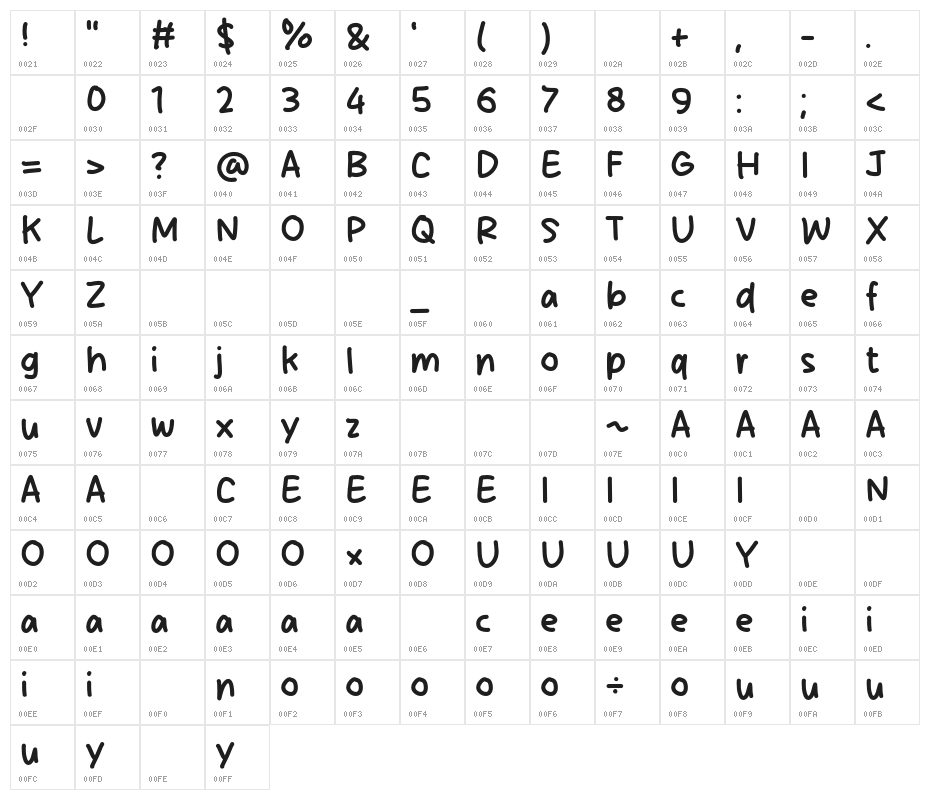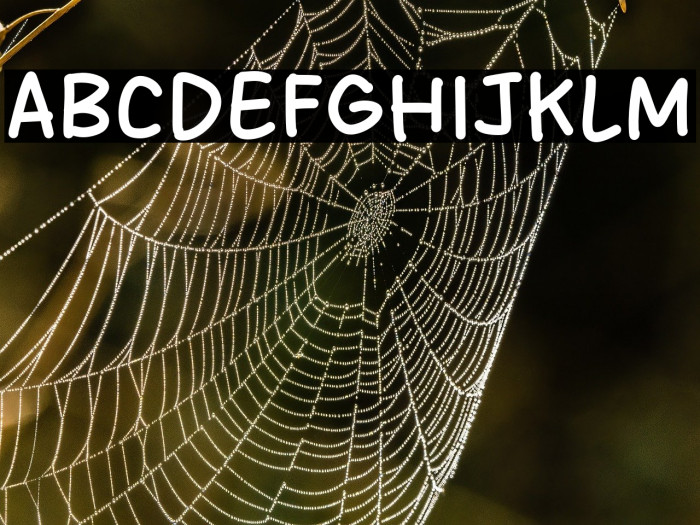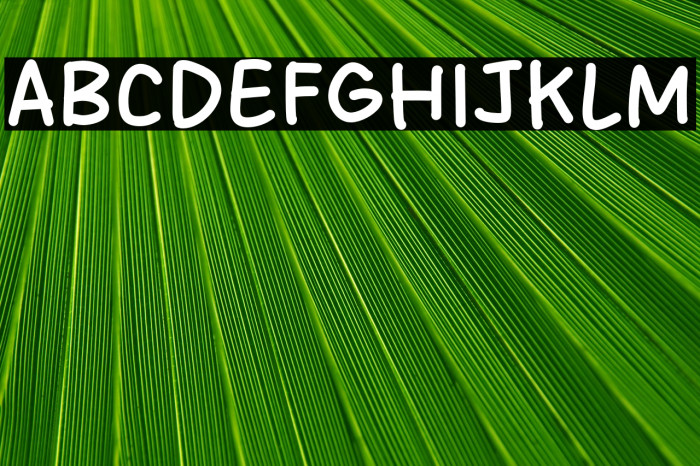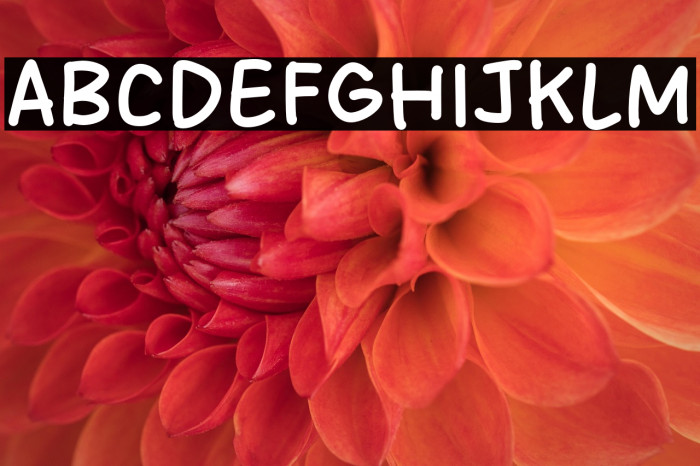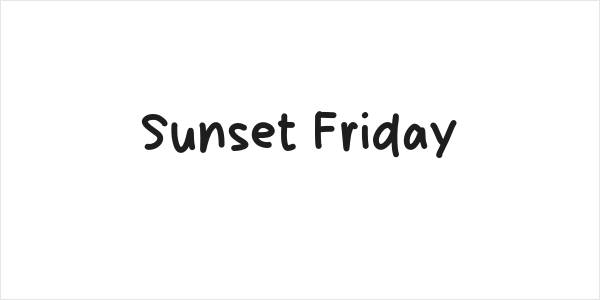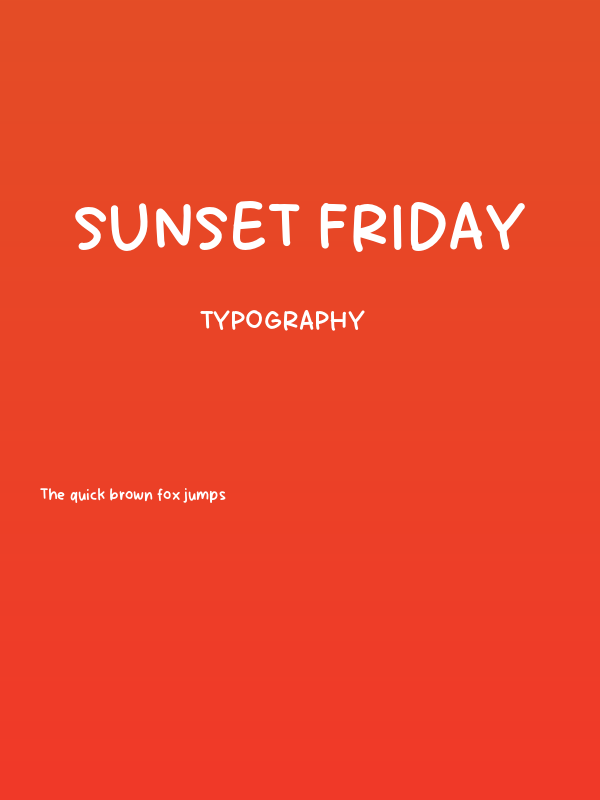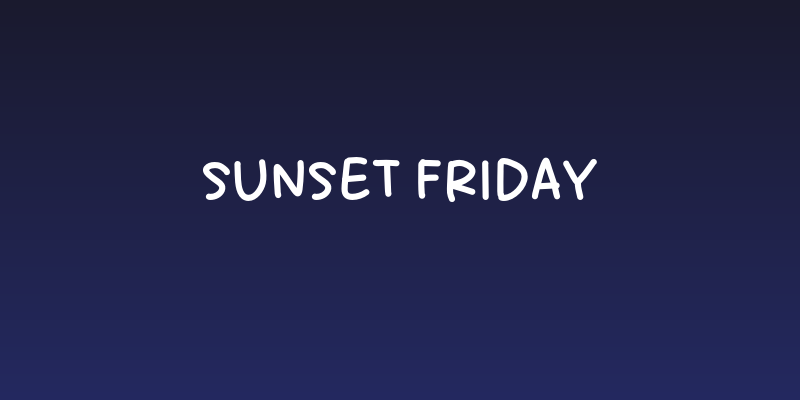
Sunset Friday Font
Sunset Friday Description
A playful, rounded handwritten typeface with consistent stroke width, casual curves, and a friendly appearance. The characters are slightly irregular, mimicking natural handwriting, and the overall look is informal and approachable.
| Overall Style | Playful, Informal, Friendly |
| Use Case | Headlines, Posters, Children's materials, Informal notes |
| Proposed Projects | Children's books, greeting cards, posters, educational materials, informal branding. |